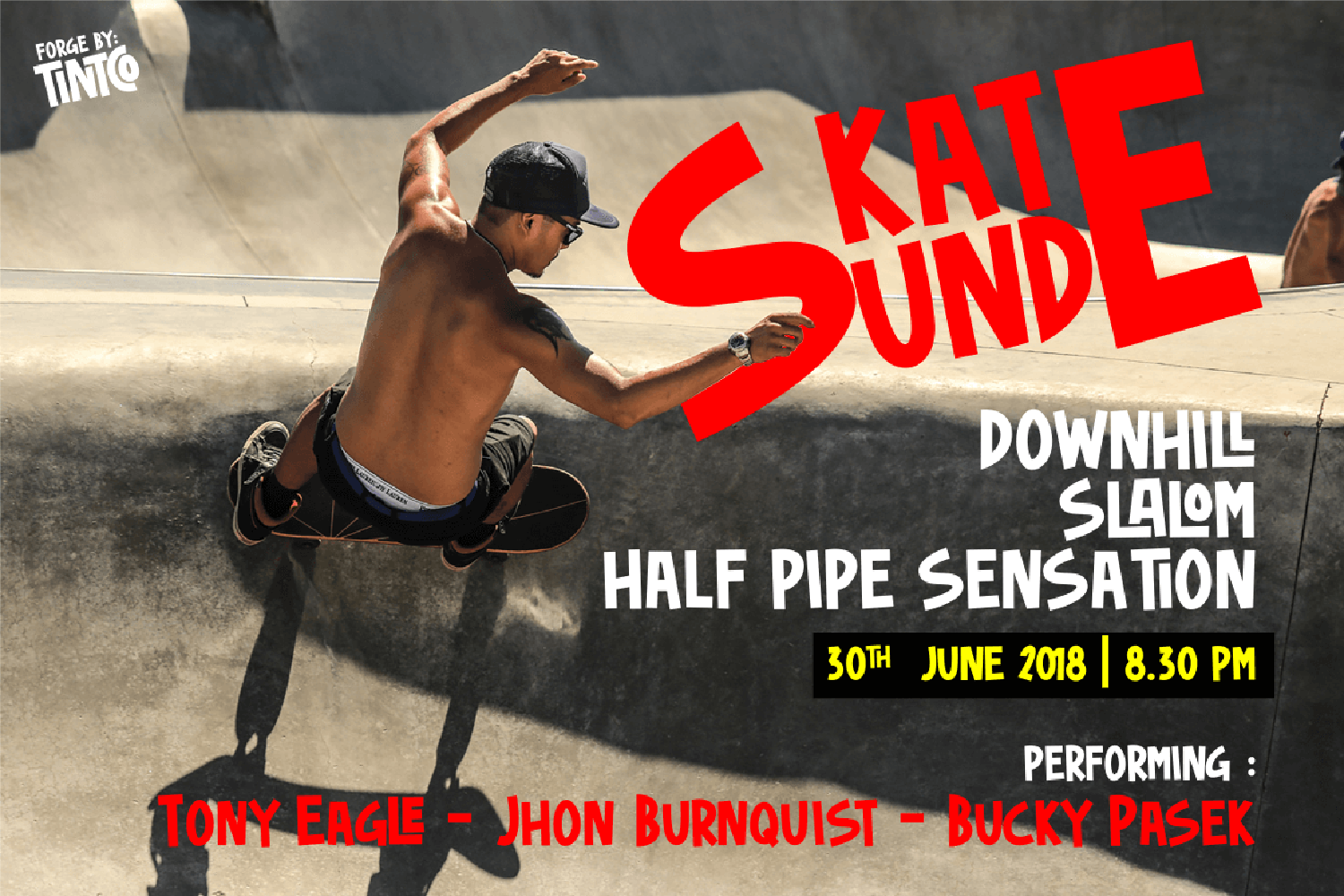
Tintco Free Font
Tintco Free Font is a strikingly bold font, with uppercase and small uppercase. Amazing ligature, stand out from the crowd. perfect for any rebellious, and energetic poster. The headline, display, or body text, you name it. Tintco Free Font will make it perfect. This free typeface was designed by a talented Sahirul Iman. If you like it don’t forget to check out the full version.